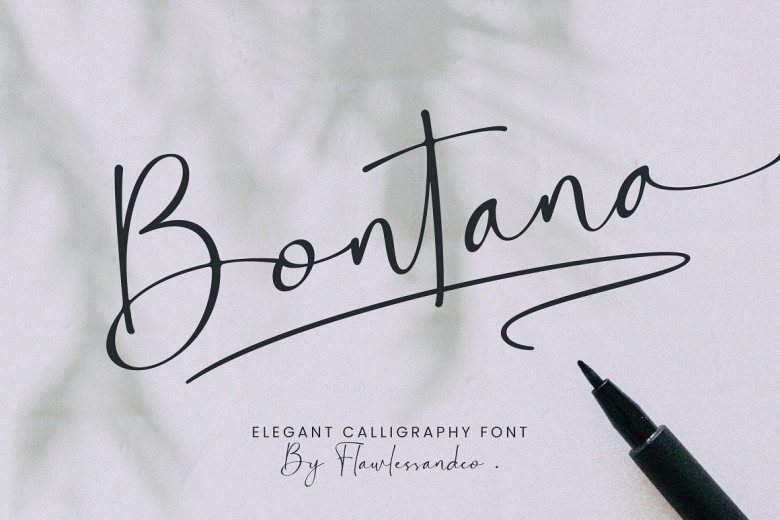
Bontana Font
“Bontana” – an elegant Caligraphy Font – will elevate the designs you create by exuding timeless elegance. Enjoy its fluid strokes and sophisticated curves for adding style and refinement to your work.
Bontana Calligraphy Script Font